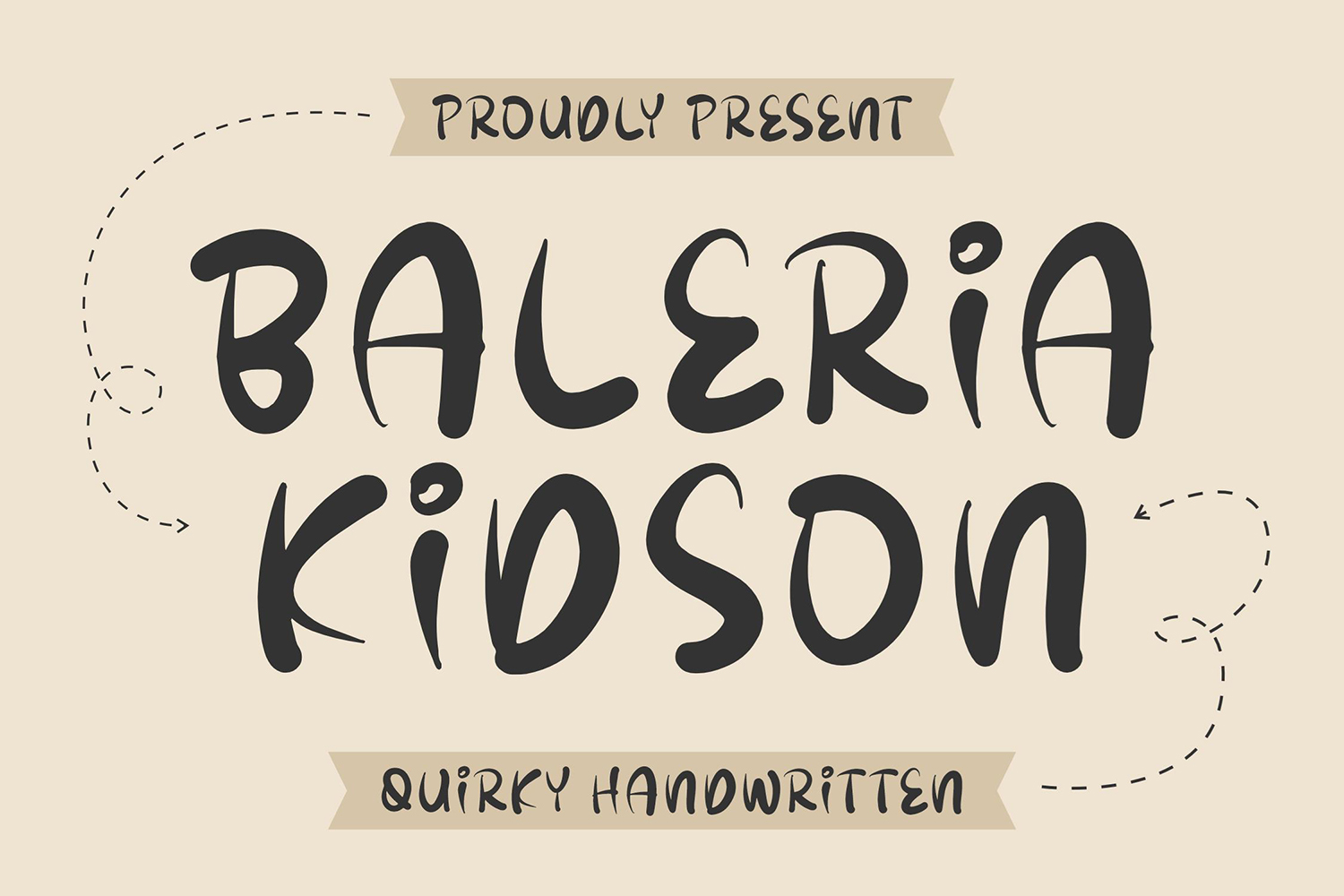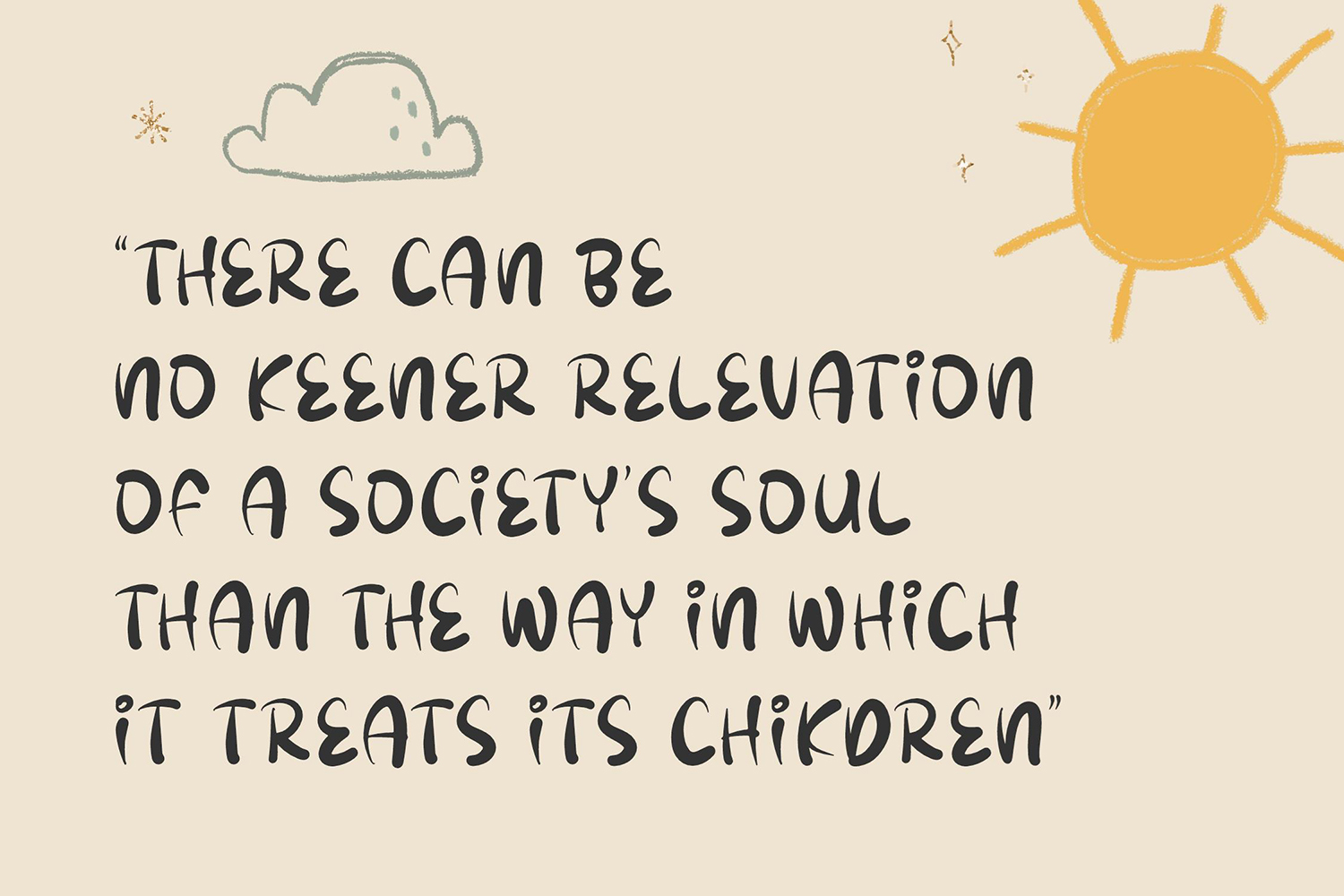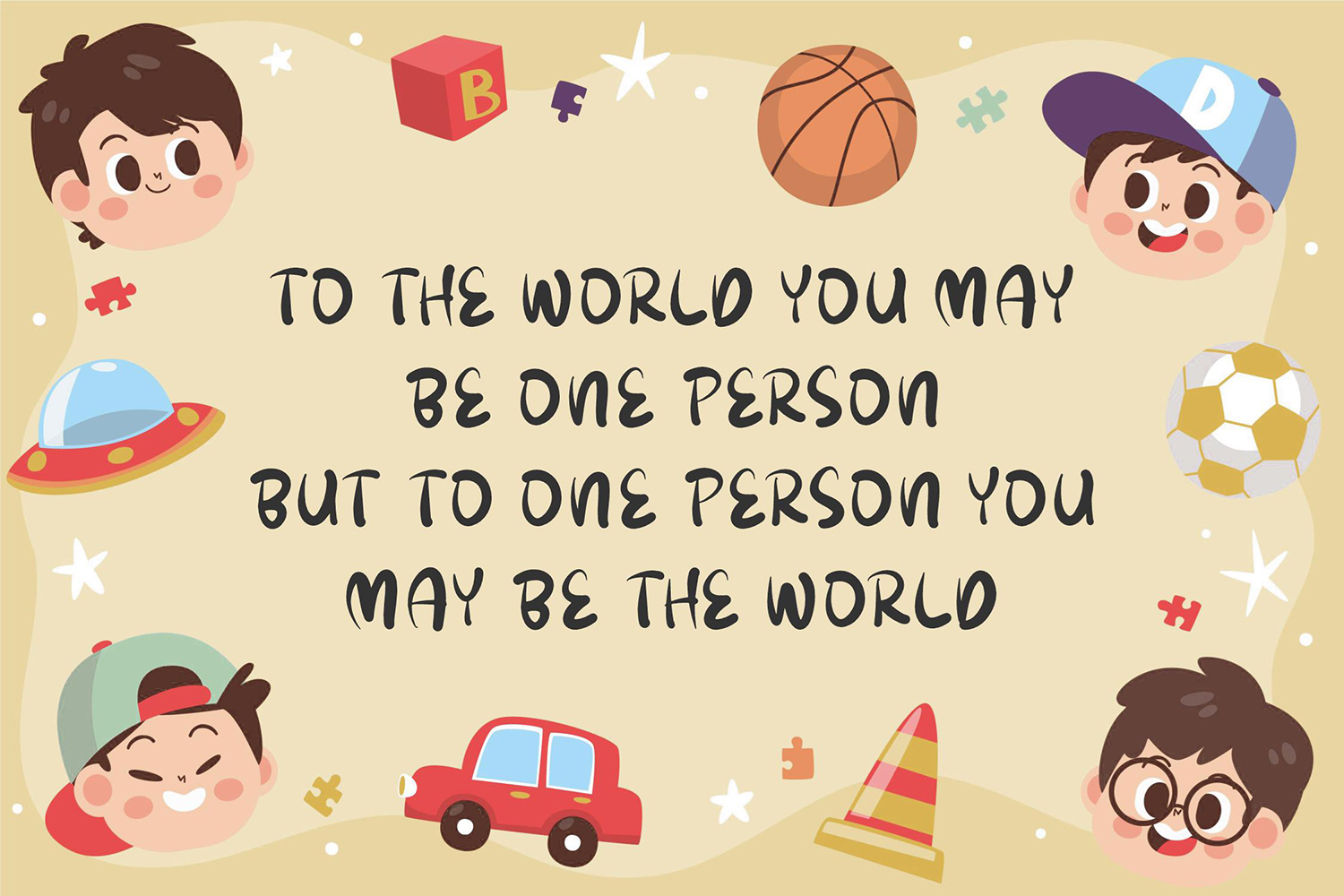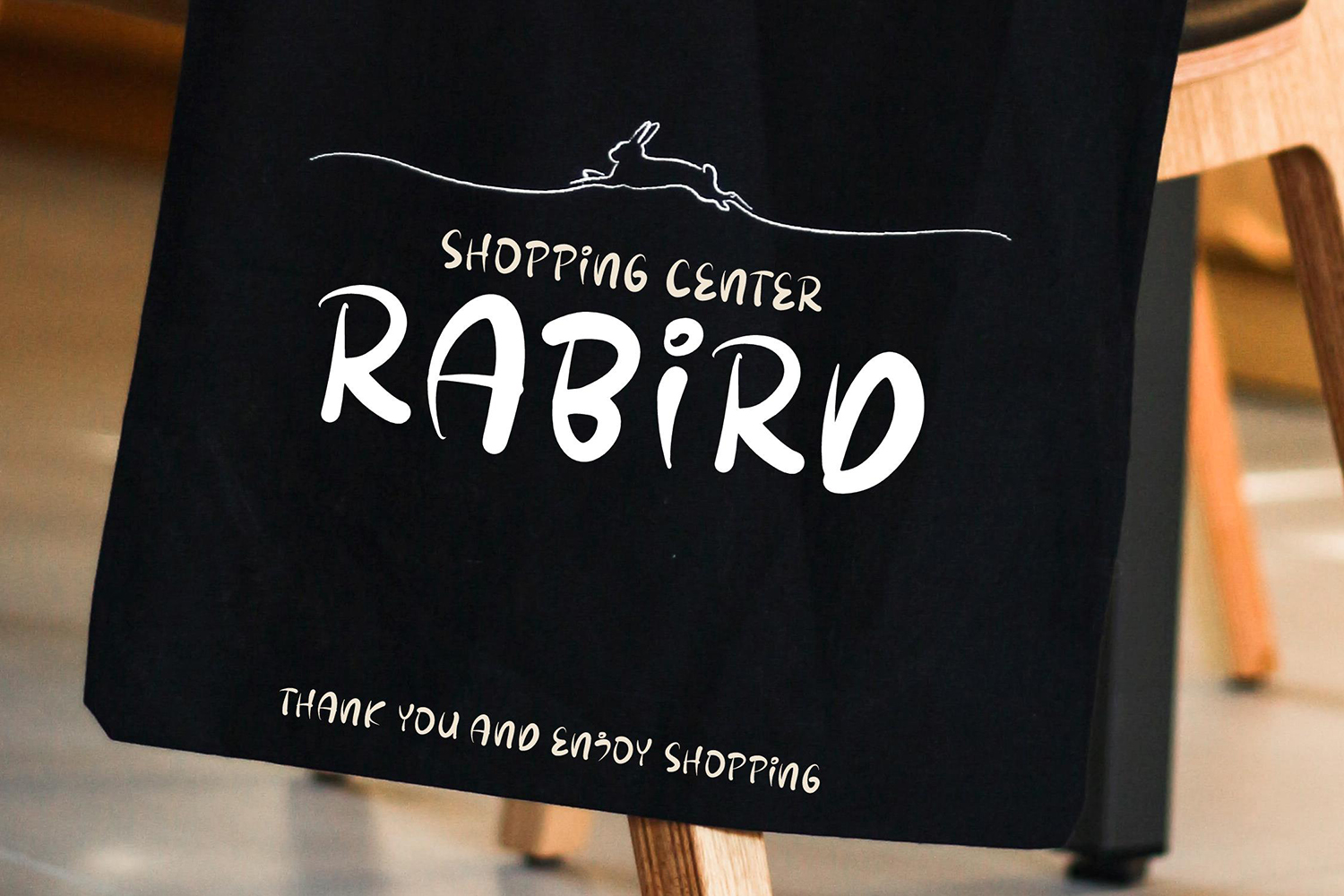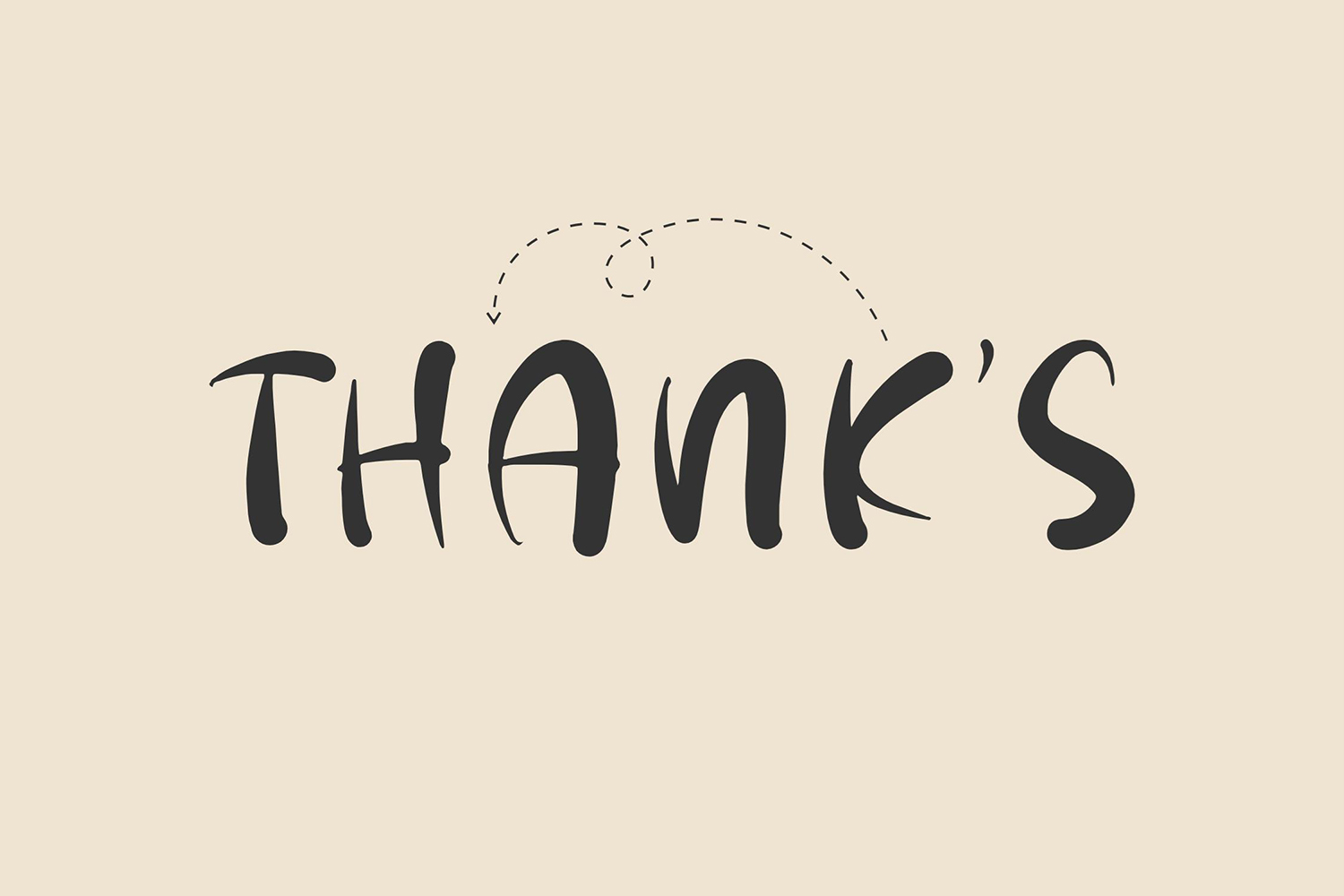
Baleria Kidson Free Font
Baleria Kidson Free Font is a fun and quirky handwritten font. Its playful and whimsical look makes it suitable for a wide spectrum of design ideas. This free typeface was designed by a talented Perspectype Studio. If you like it don’t forget to check out the full version.